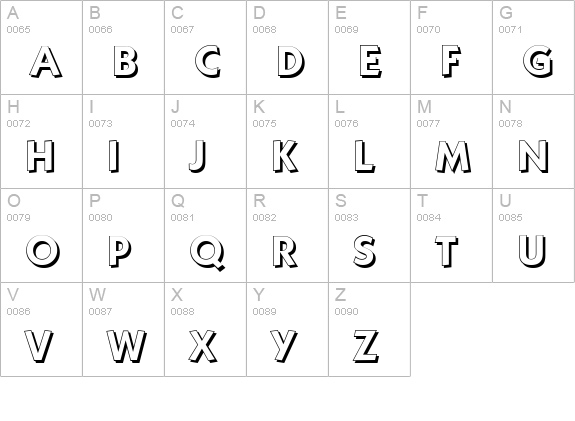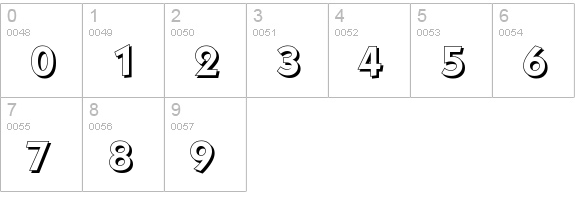
KoblenzShadow-Bold is a strong, high-contrast variant in the KoblenzShadow typeface family \xE2\x80\x94 well suited to headlines, attention-grabbing titles, and strong calls-to-action.
KoblenzShadow-Bold is a striking and bold display font that commands attention with its unique shadowed design. This font is perfect for making a statement in headlines, posters, logos, and other design projects where you want to make a bold impact. The strong and dynamic lines of KoblenzShadow-Bold give your text a modern and edgy look that is sure to stand out. The best part is that KoblenzShadow-Bold is available for free download at FontsMarket.com. This means you can easily access this eye-catching font and use it in your projects without any cost. Whether you're a professional designer or a hobbyist looking to add some flair to your creations, KoblenzShadow-Bold is a versatile and powerful font that is sure to enhance your work. Download it today and unleash the boldness of KoblenzShadow-Bold in your designs.